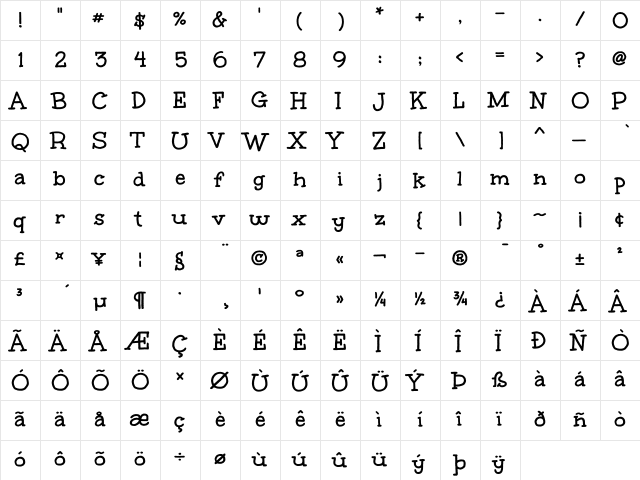
Unkempt Bold
| Foundry | Font Diner, Inc DBA Sideshow |
| Designer | Squid |
Design Context for Unkempt Typeface
Unkempt is a composed and adaptable typeface that performs quietly and consistently across a wide range of design contexts. Its bold stroke weight gives it real presence on the page.